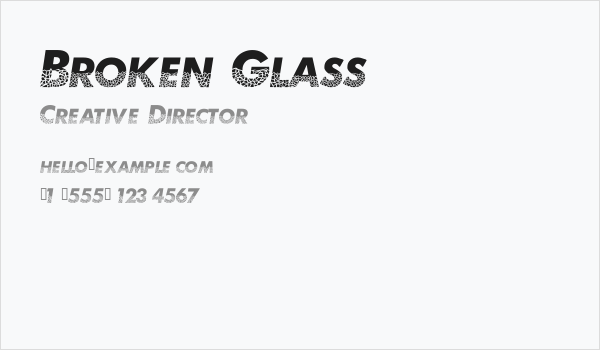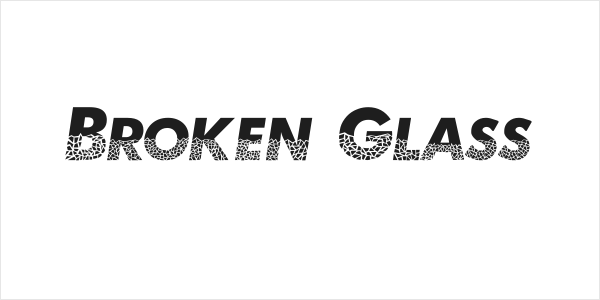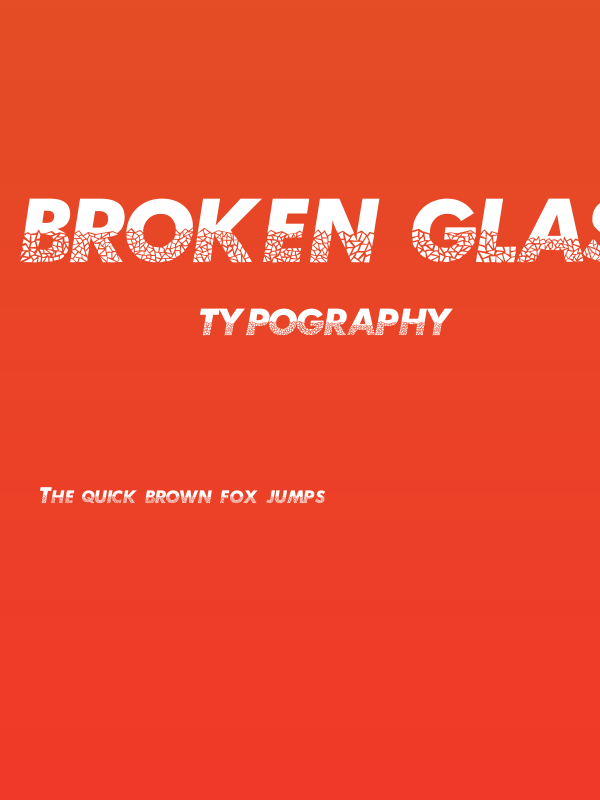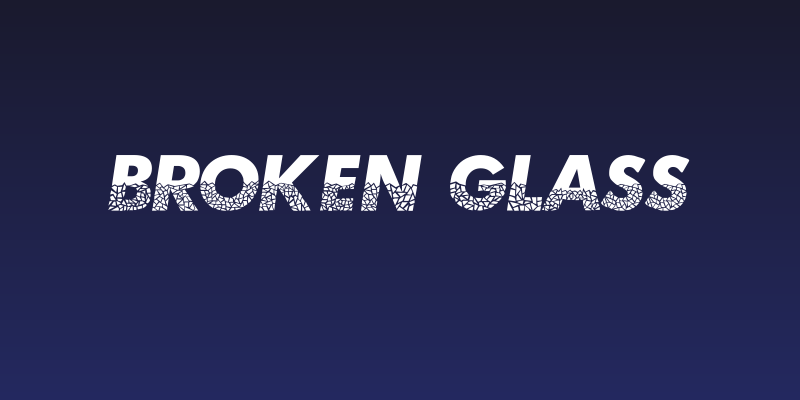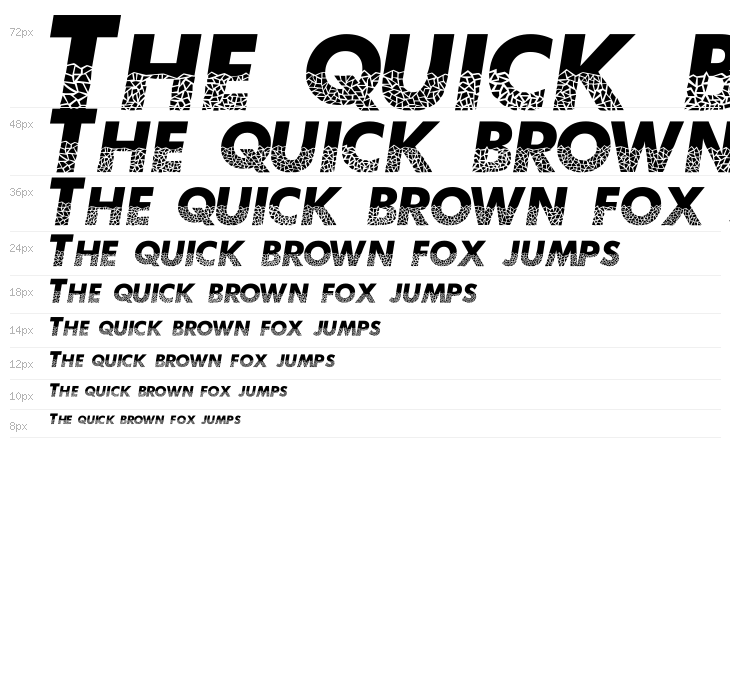
Broken Glass Font
Broken Glass Description
This font features a unique and striking design that mimics the appearance of shattered glass. Each character is composed of angular, fragmented shapes that create a dynamic and edgy look. The bold and impactful style makes it ideal for grabbing attention. The uppercase and lowercase letters maintain a consistent shattered pattern, while the numbers and special characters follow suit, ensuring a cohesive visual theme. This font is perfect for projects that require a bold statement or a modern, artistic touch.
| Proposed Projects | Ideal for use in posters, album covers, video game titles, and any design requiring a bold, artistic statement. |